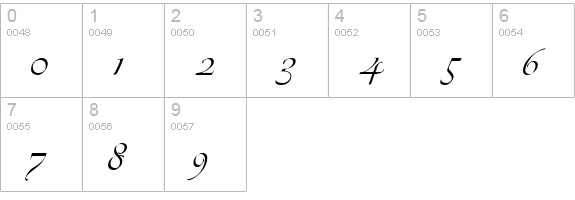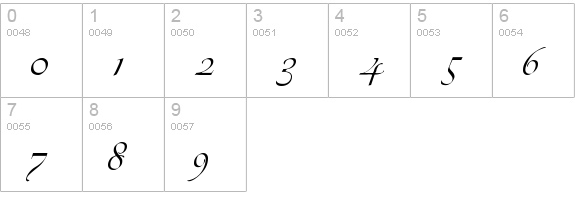
Vivaldi MN is a stunning and elegant font that exudes sophistication and timeless beauty. Its graceful curves and delicate serifs make it perfect for adding a touch of luxury to any design project. Whether you're creating invitations, logos, or branding materials, Vivaldi MN is sure to make a lasting impression. And the best part? Vivaldi MN is completely free! Yes, you read that right - this exquisite font is freely available to download at FontsMarket.com. So why wait? Elevate your designs with the timeless elegance of Vivaldi MN today!